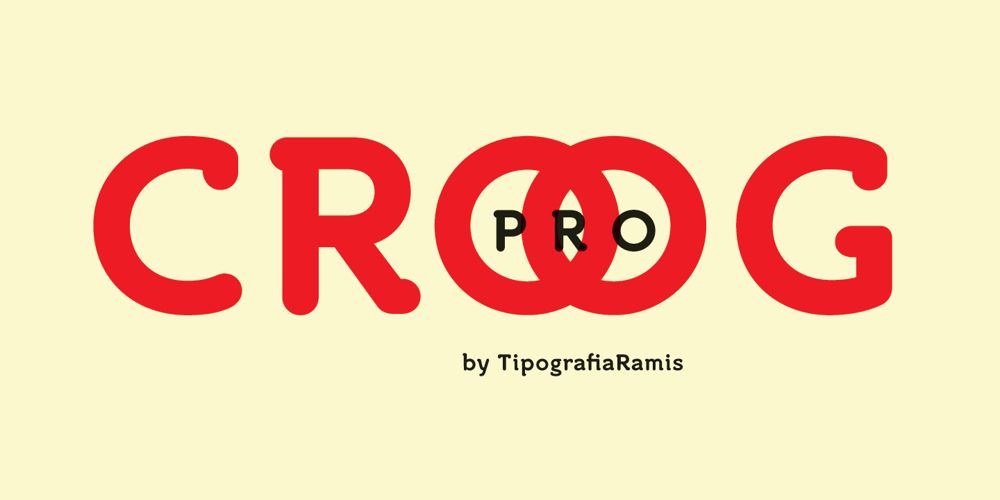
Croog Pro
Croog Pro font
Croog Pro Font Family was designed by Ramiz Guseynov and published by TipografiaRamis. Croog Pro contains 8 styles and family package options. Croog Pro is an upgraded version of Croog fonts (2009). As its predecessor, the new release is a rounded geometric monoline typeface, but built now in four weights with true italics. One more style has been added – “Black”, for display use. Squarish in proportions, monoline letterforms gain more readability by having short rounded serifs and terminals. The typeface is ideal for use in display sizes, though is quite legible in text. Croog Pro is released as OpenType fonts with extended glyph amounts, which enabled support of more Latin languages as well as Cyrillic languages, and includes some OpenType features.